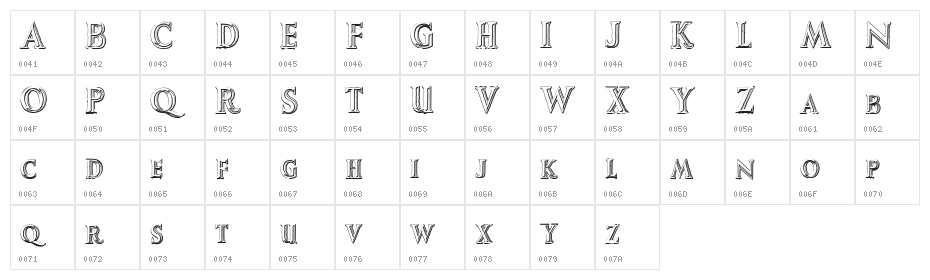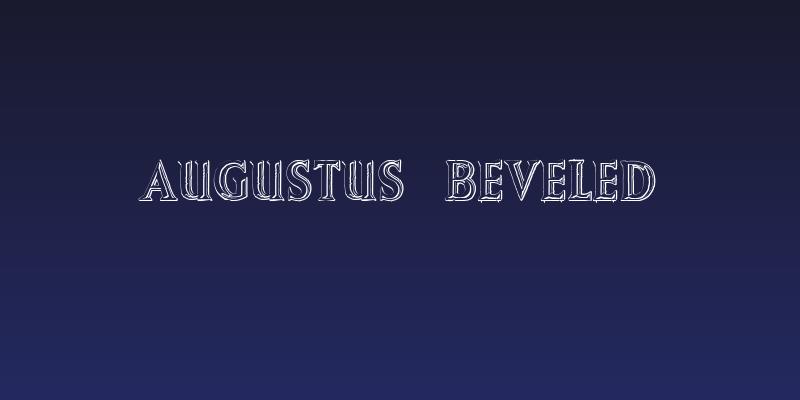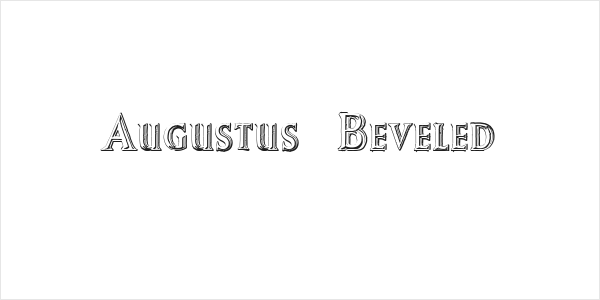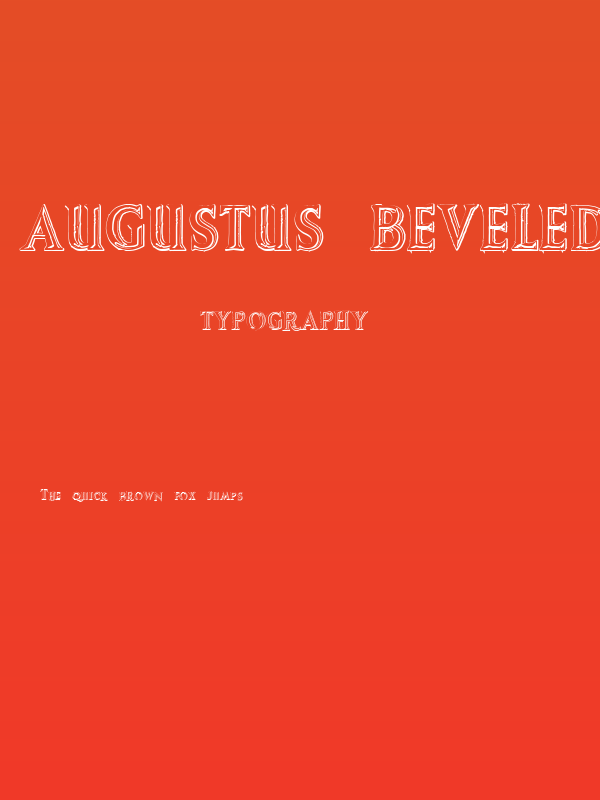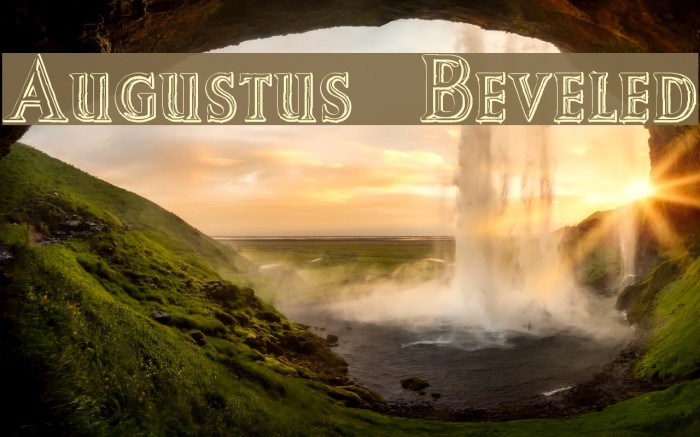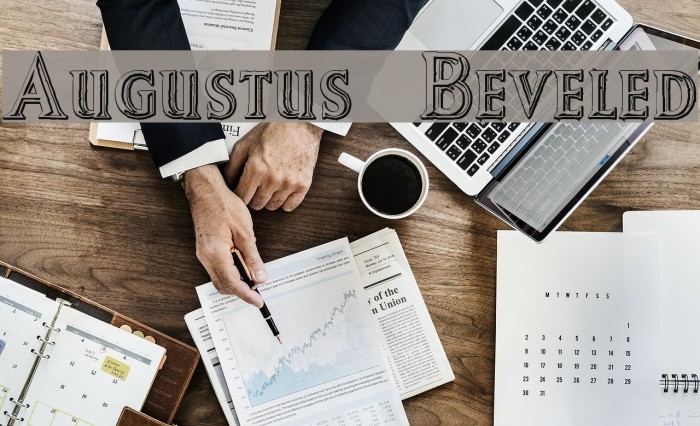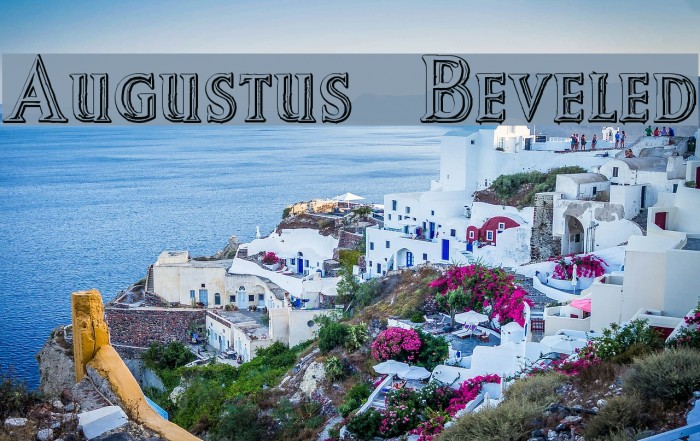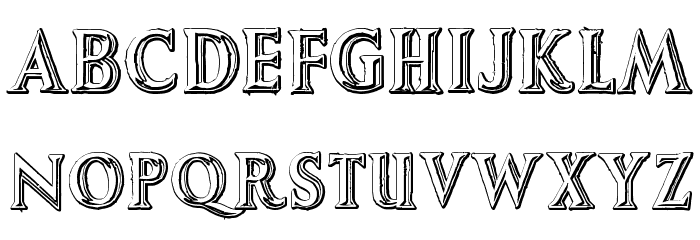
Augustus Beveled Font
Augustus Beveled Description
This font features a classic and elegant design with a distinct beveled effect that adds depth and dimension to each character. The uppercase letters are bold and commanding, with sharp serifs that enhance their stately appearance. The intricate detailing within the letters gives them a sophisticated and timeless look, making them ideal for projects that require a touch of grandeur. The font's structure is well-balanced, with consistent stroke widths and a harmonious flow between characters. Its unique style is perfect for creating eye-catching headlines, logos, and branding materials that demand attention.
| Proposed Projects | Ideal for luxury branding, editorial headlines, book covers, and formal invitations. |